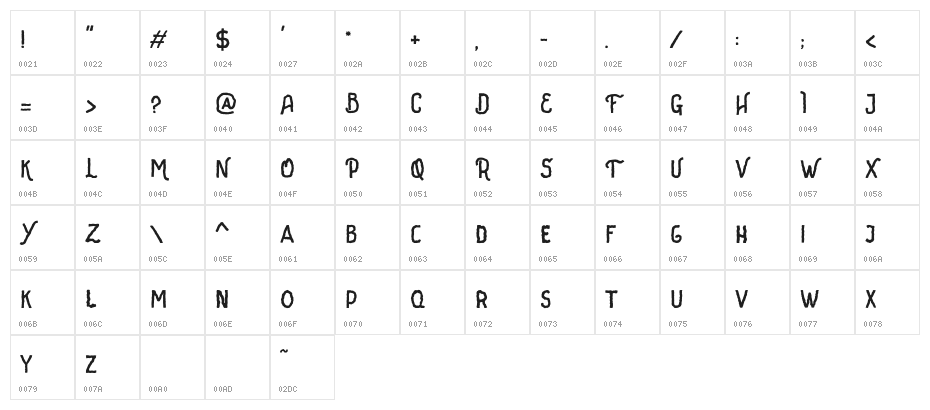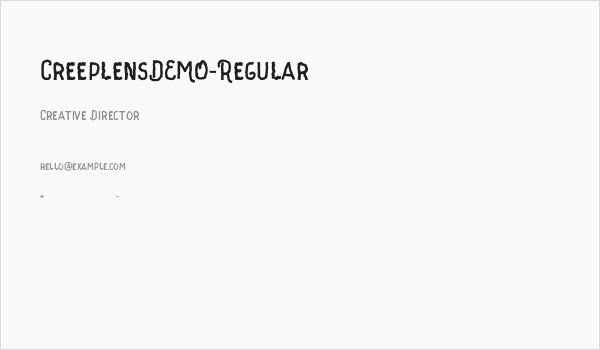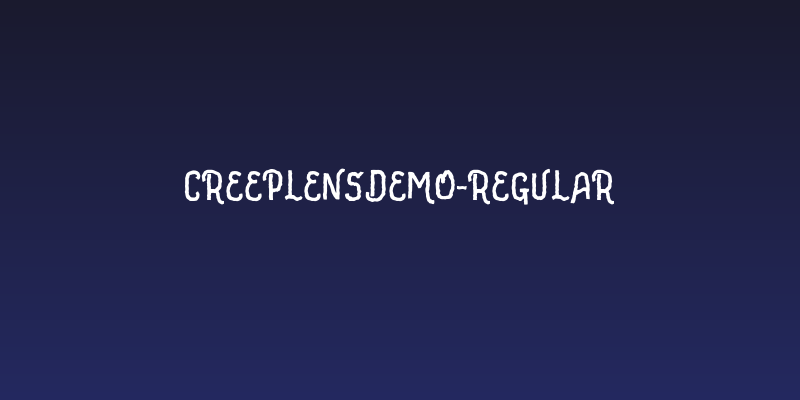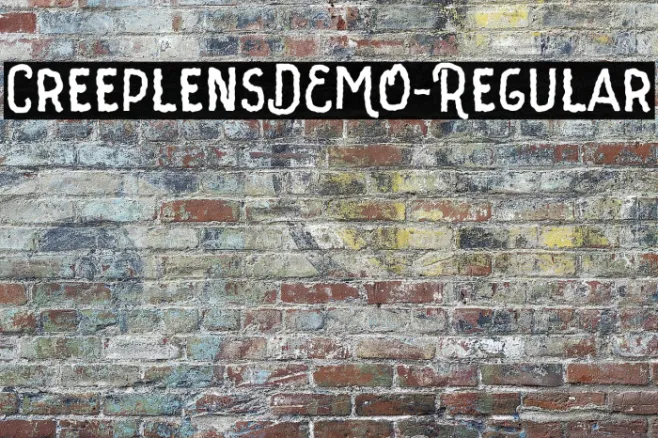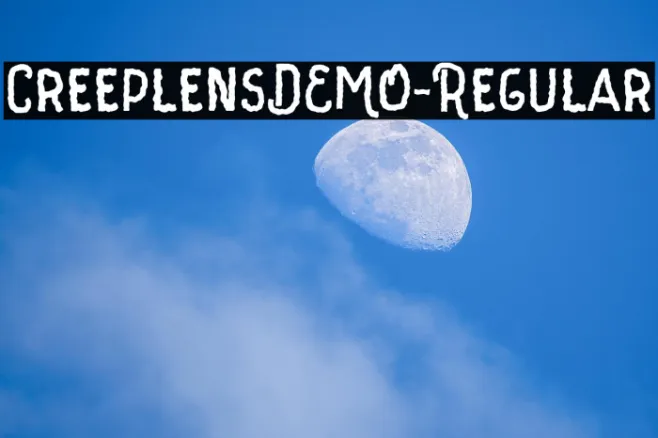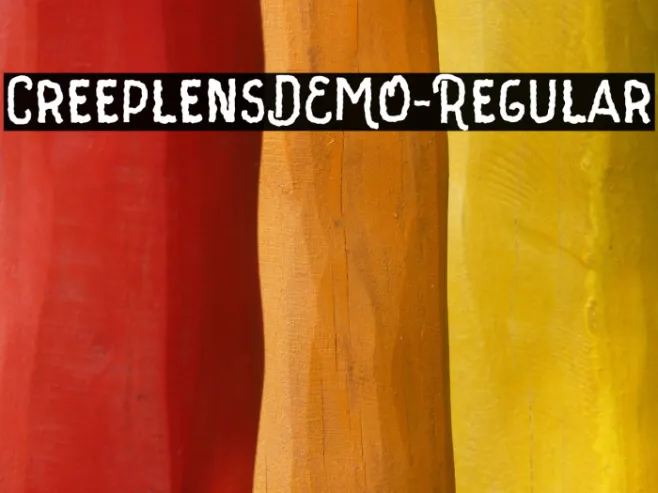
CreeplensDEMO-Regular Font
CreeplensDEMO-Regular Description
This font features a unique, slightly distorted style that gives it a hand-drawn, eerie appearance. The uppercase letters have a rugged, uneven texture, while the lowercase letters maintain a consistent yet quirky design. The numbers and special characters follow the same irregular pattern, adding to the font's distinctive look. The overall style is reminiscent of a horror or mystery theme, making it ideal for projects that require a spooky or unsettling aesthetic. The characters are well-spaced, ensuring readability despite their unconventional shapes.